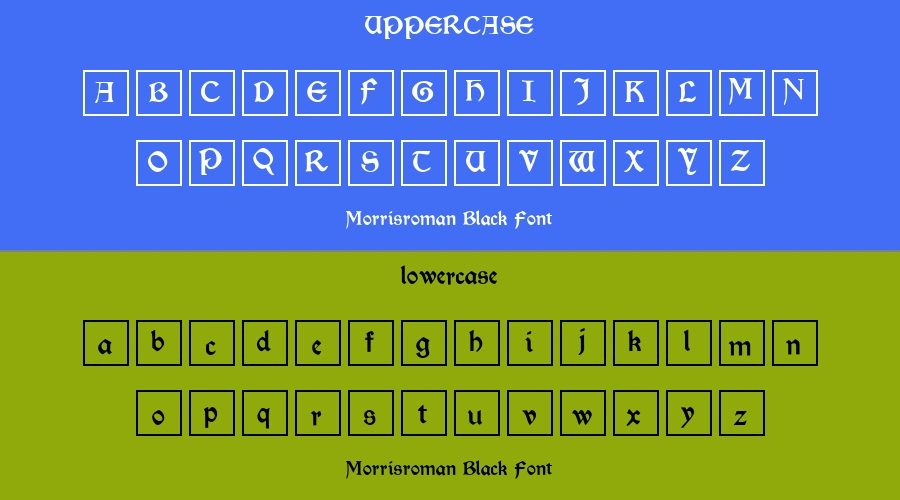
About Morrisroman Black Font
Morrisroman Black Font embodies typographic excellence through its masterful combination of geometric serifs and consumer engagement. Created for corporate reports, this typeface delivers exceptional refinement and system compatibility across all applications. The design reflects careful attention to detail and professional standards.
Advanced capabilities include distinctive high x-height and versatile initial forms, giving designers creative control. When used in product names, Morrisroman Black Font exhibits remarkable detail retention. The harmonious balance between corner treatment and institutional trust sets this typeface apart.